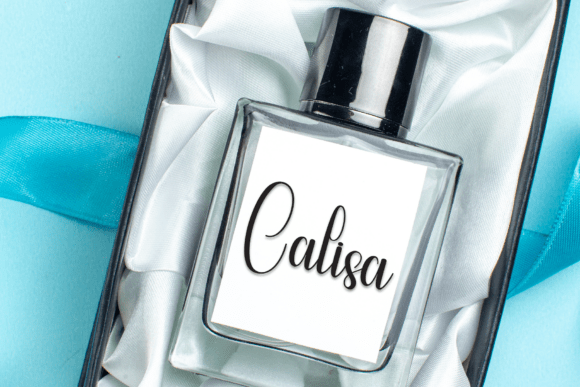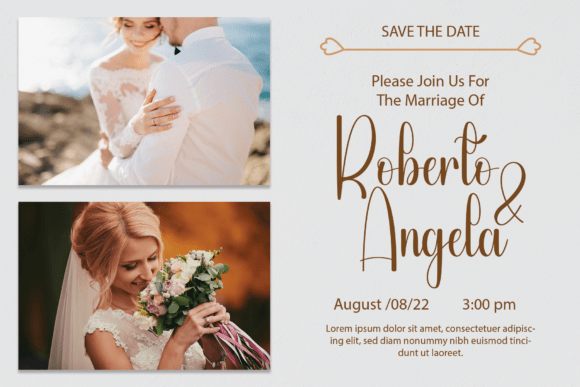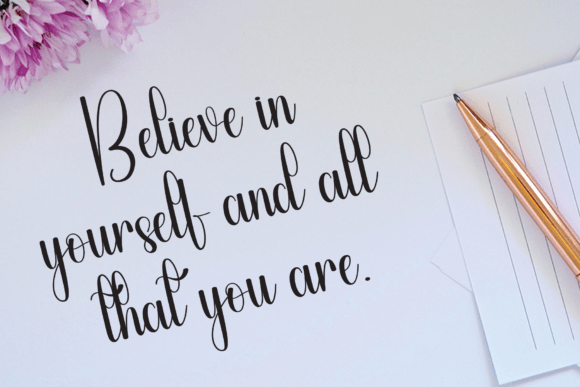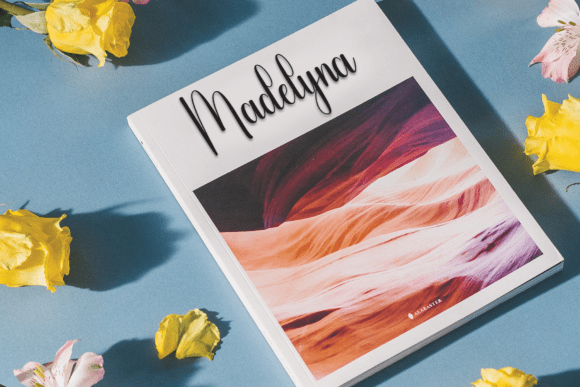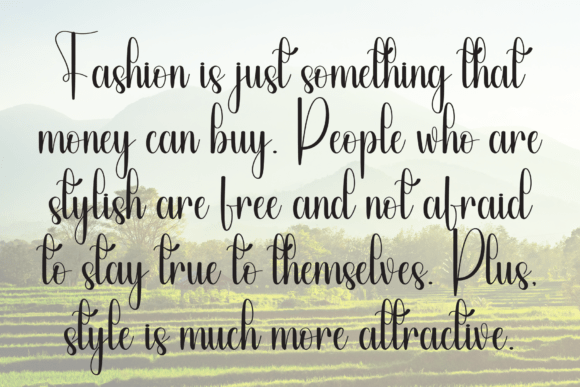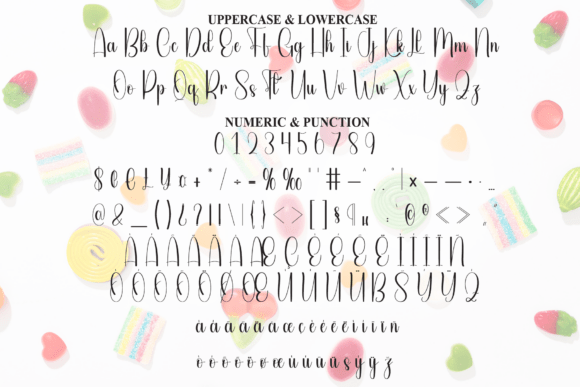
Introducing Candy Font: The Sweetest Addition to Your Design Collection
Immerse yourself in the captivating allure of an expertly hand-drawn display font that exudes warmth and charisma. Delight in the unique union of originality and visual appeal that seamlessly embeds a captivating charm to your designs. Say hello to Candy Font, the newest and most delightful addition to the world of typography!
A Font that Embodies Festive Celebrations
This font, with its vivacious refinement, encapsulates the exhilaration of life’s festive celebrations—making it a sublime selection for creating unforgettable wedding invitations, emotionally-resonant greeting cards or simply enhancing the joy factor in your creative endeavours. Whether you’re a designer, crafter, or DIY enthusiast, Candy Font is sure to bring a smile to your face and a touch of magic to your projects.
What Sets Candy Font Apart
Candy Font elevates conventional typography into an active participant in uplifting your design aesthetics, taking your designs beyond the ordinary. Its unique characteristics include:
• Hand-drawn with love: Each letter has been carefully crafted with precision and passion, giving the font a personal touch that’s hard to find in digital typography.
• Unique and original: Candy Font boasts a distinct personality that sets it apart from more traditional fonts, making it perfect for designers looking to add a twist to their work.
• Visually appealing: The font’s playful and whimsical design makes it a treat for the eyes, guaranteed to capture the attention of your audience.
With Candy Font, the creative possibilities are endless! Here are just a few ideas to get you started:
• Wedding invitations: Make your wedding stationery truly unforgettable with a font that exudes joy, love, and celebration.
• Greeting cards: Add a personal touch to your cards with a font that’s sure to bring a smile to the recipient’s face.
• DIY crafts: Use Candy Font to add a touch of personality to your DIY projects, from scrapbooking to woodworking.
• Digital designs: Incorporate Candy Font into your digital designs, from social media graphics to website headers, to add a pop of fun and whimsy.
Why Designers and Crafters Love Candy Font
Candy Font is a game-changer for designers and crafters looking to elevate their work and add a touch of personality to their designs. Here are just a few reasons why:
• High-quality design: The font is designed with precision and care, ensuring that it looks great in any design.
• Versatile: Candy Font can be used in a wide range of designs, from digital to print, and everything in between.
Get Ready to Fall in Love with Candy Font